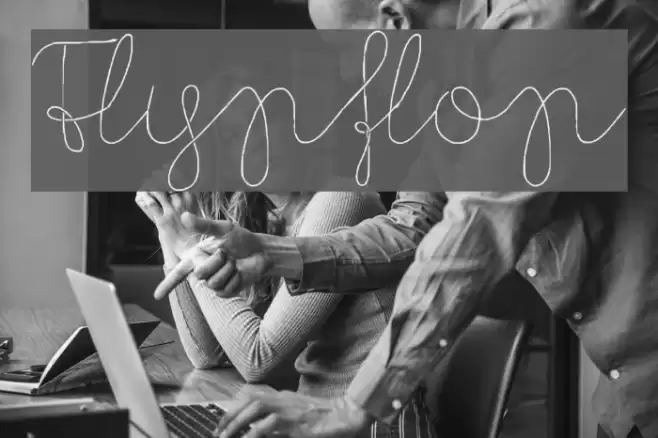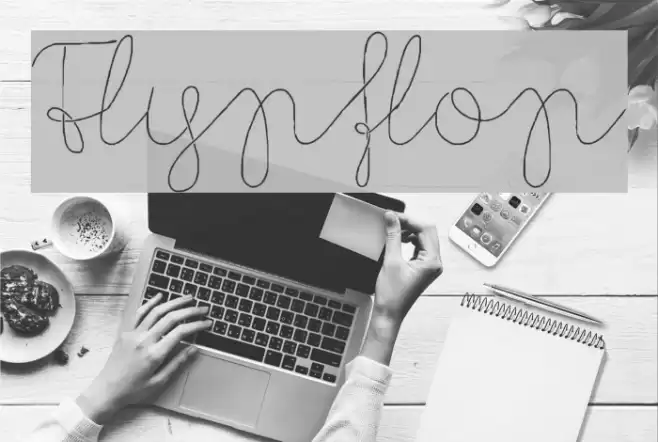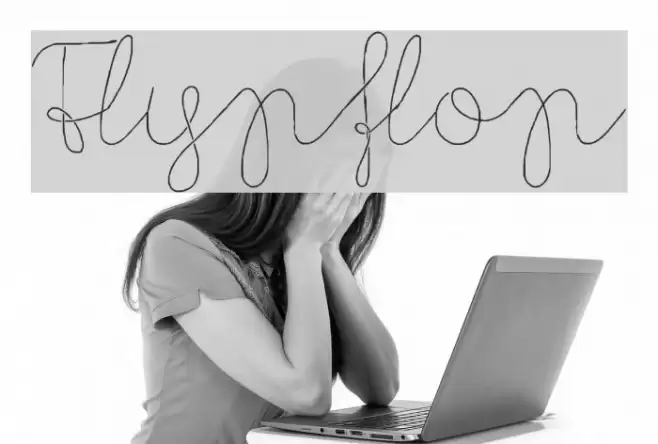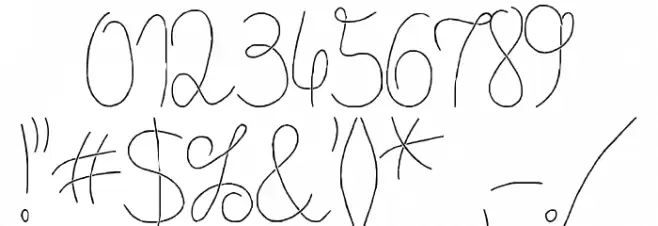
Flypflop Font
Flypflop Description
This font features a whimsical and playful script style, characterized by its flowing, interconnected letters that mimic the fluidity of handwriting. The uppercase and lowercase letters are elegantly crafted with loops and curves, giving it a lively and dynamic appearance. The numbers and special characters maintain the same playful aesthetic, ensuring consistency throughout. The font's thin strokes and delicate lines add a touch of sophistication, making it suitable for creative and artistic projects. Its unique style is perfect for adding a personal touch to invitations, greeting cards, and other decorative designs.
A whimsical script font with flowing, interconnected letters and a playful aesthetic from Handwritten fonts.
- Proposed Projects: Ideal for invitations, greeting cards, artistic projects, and decorative designs.
- Use Case: Logos, Headlines, Decorative text